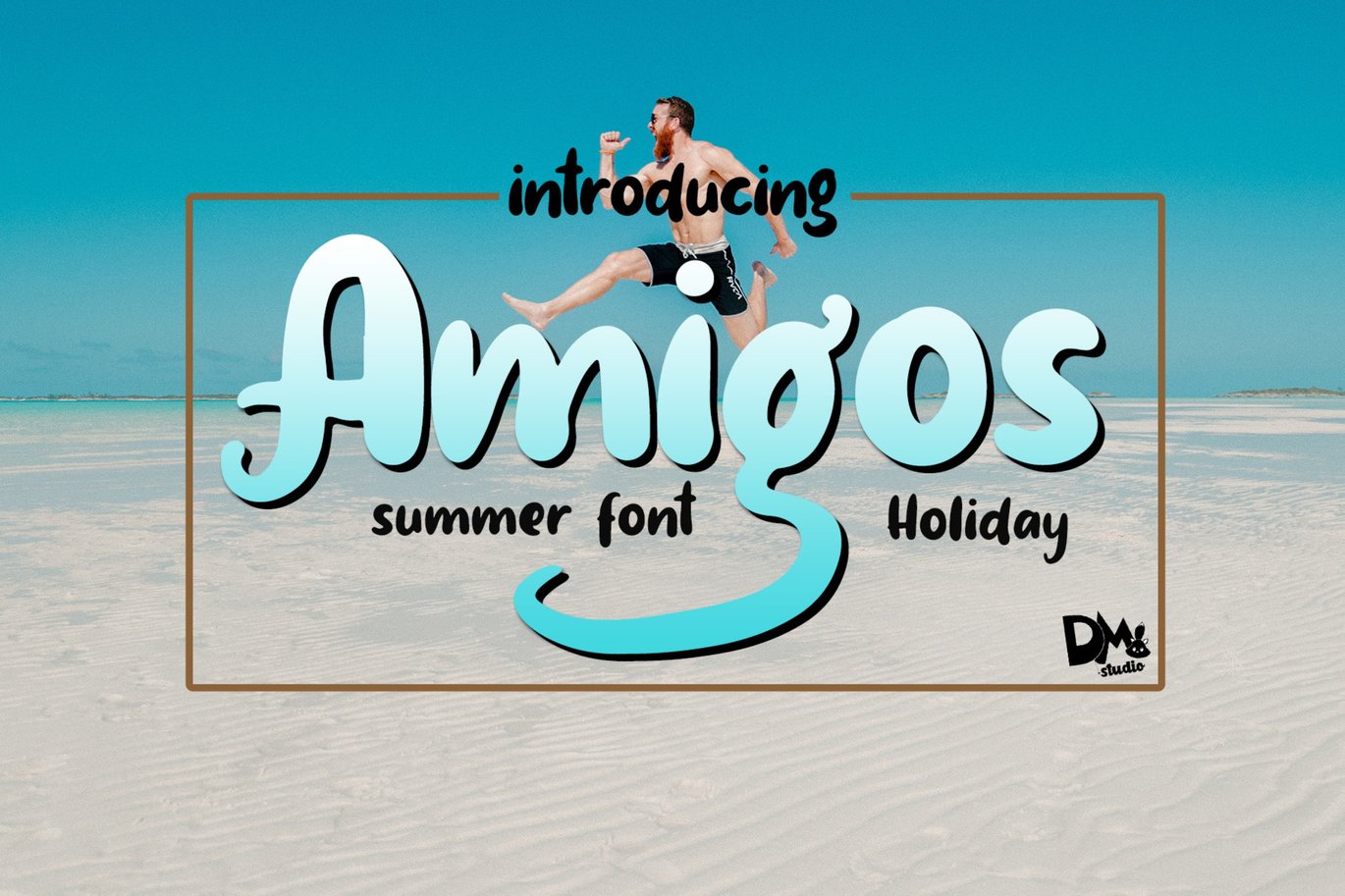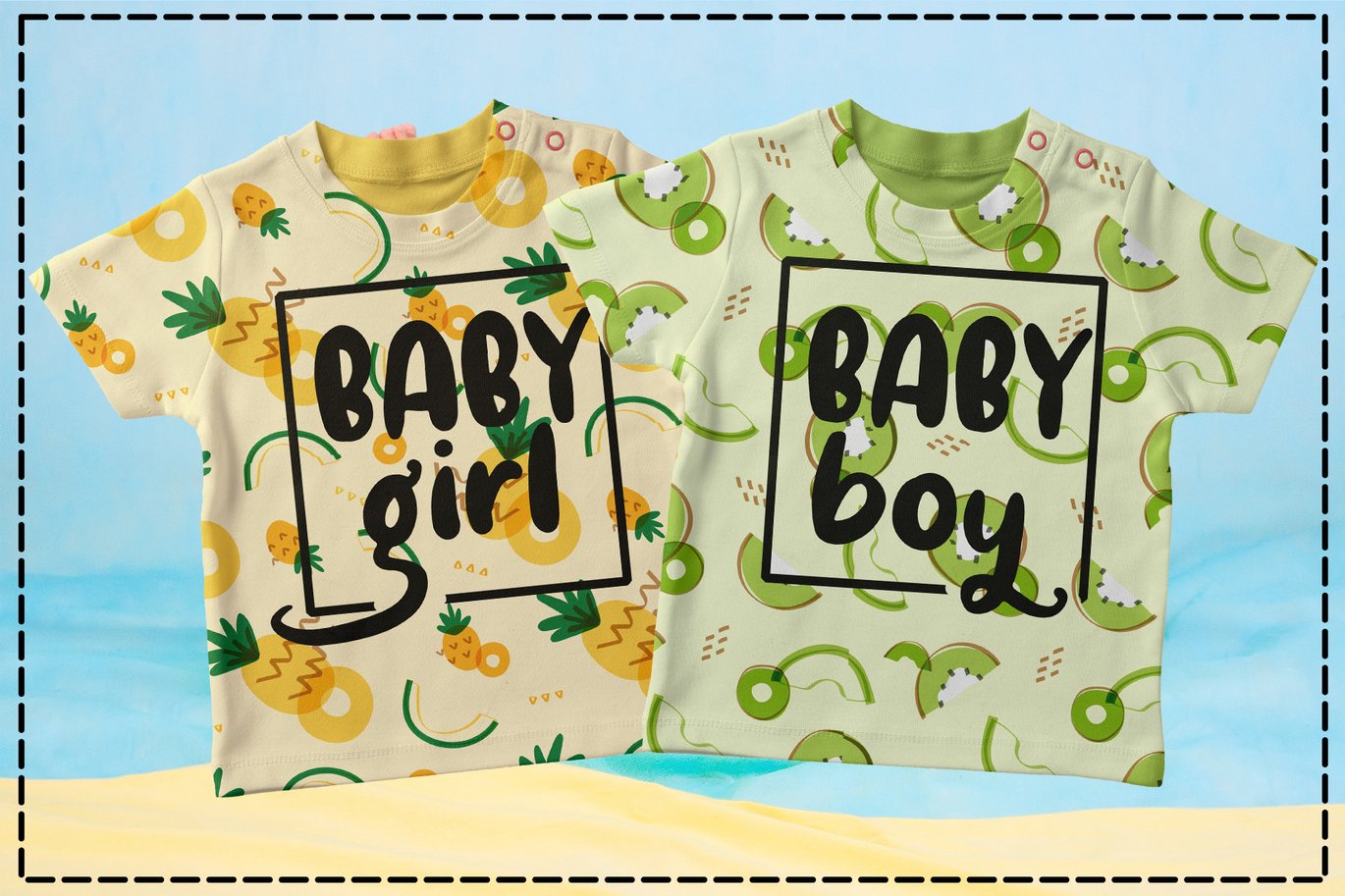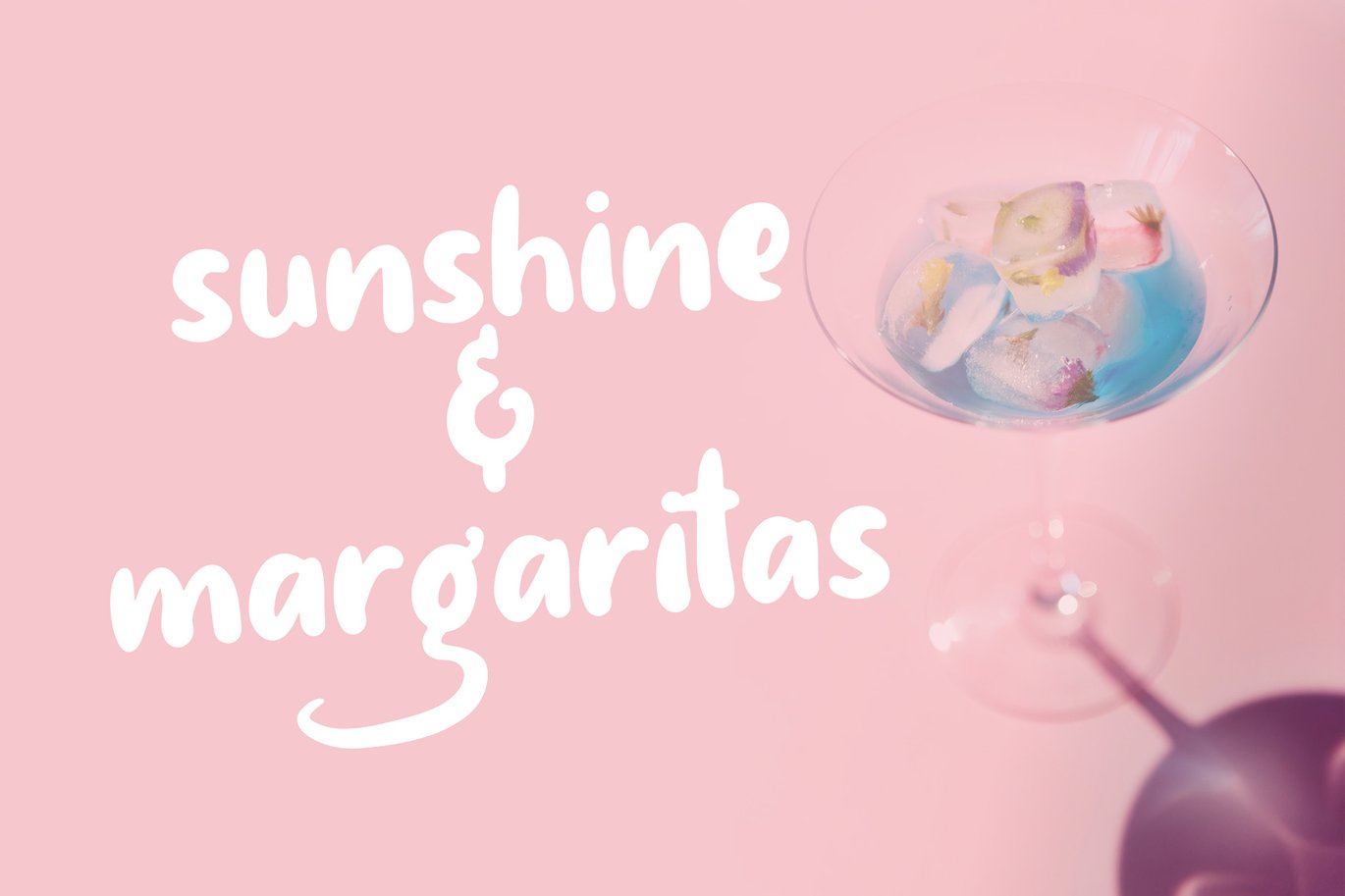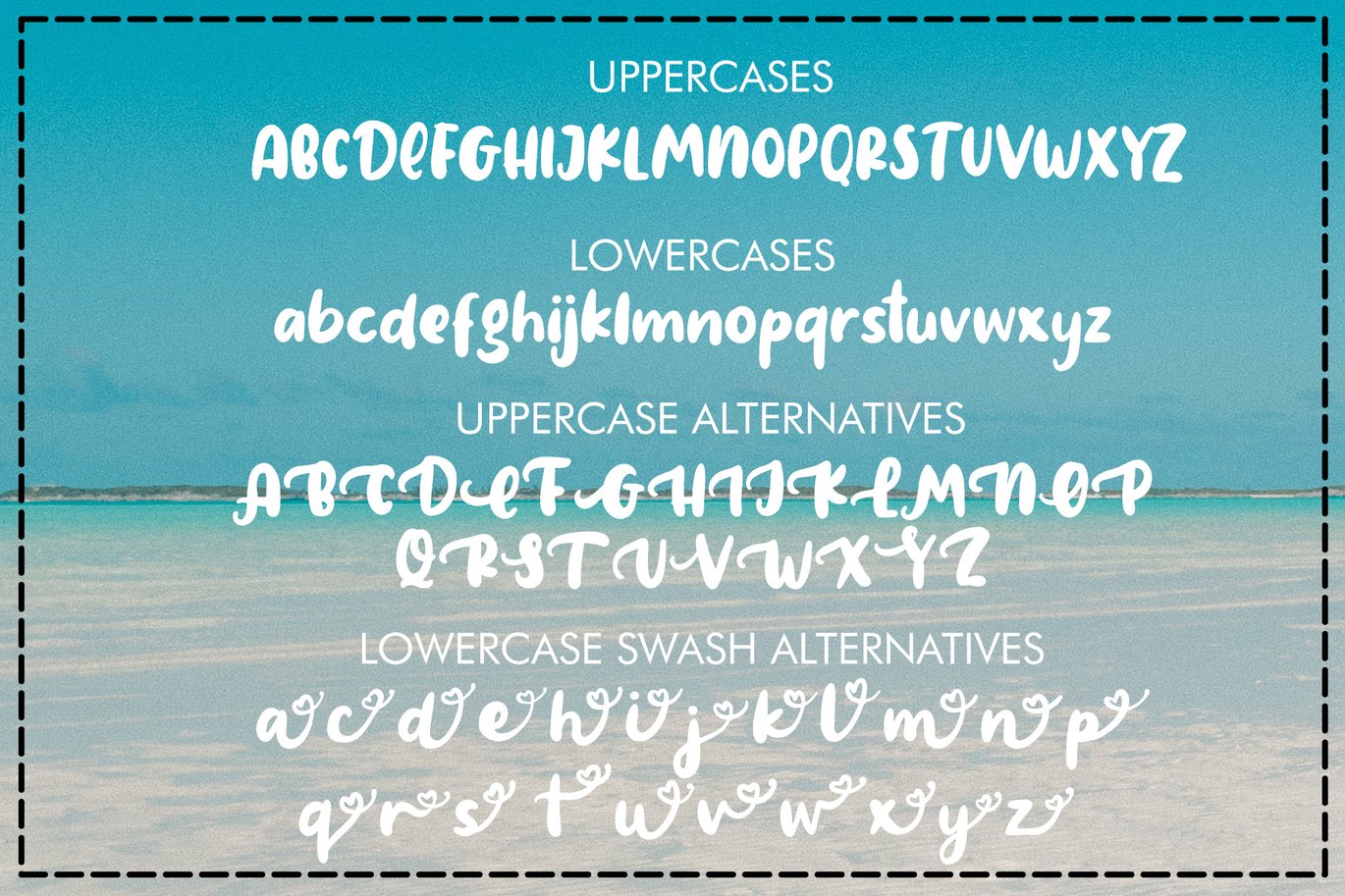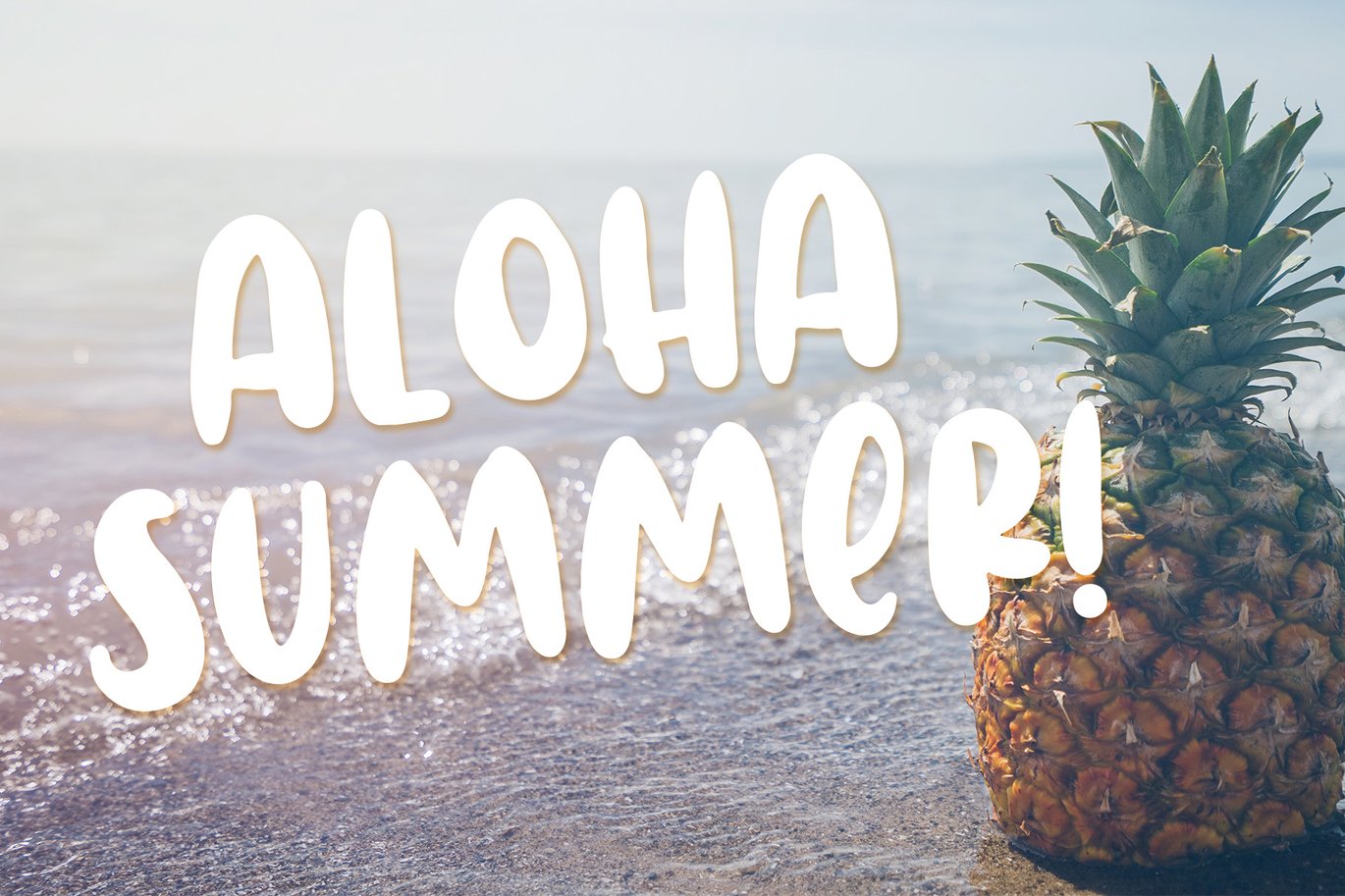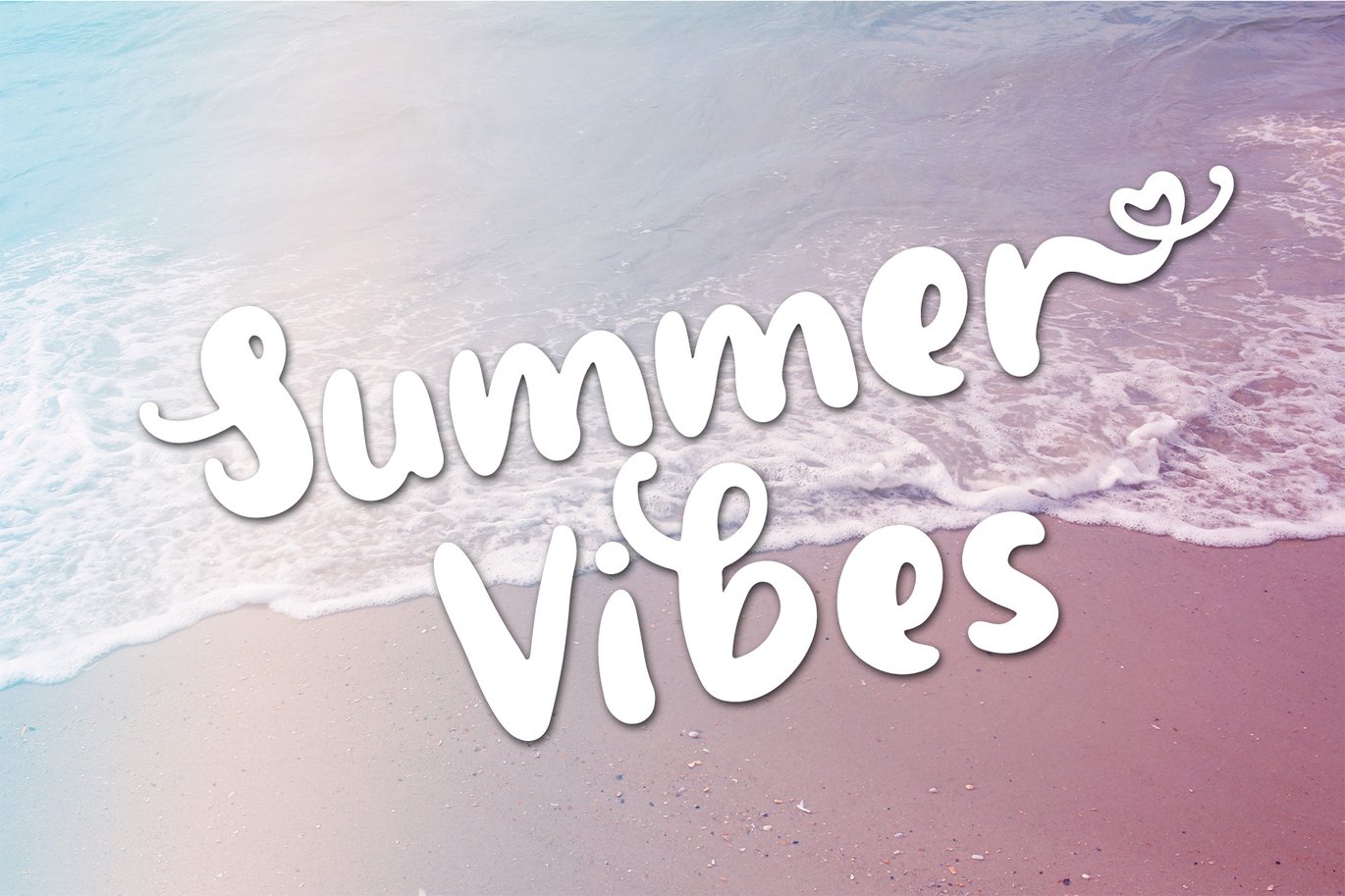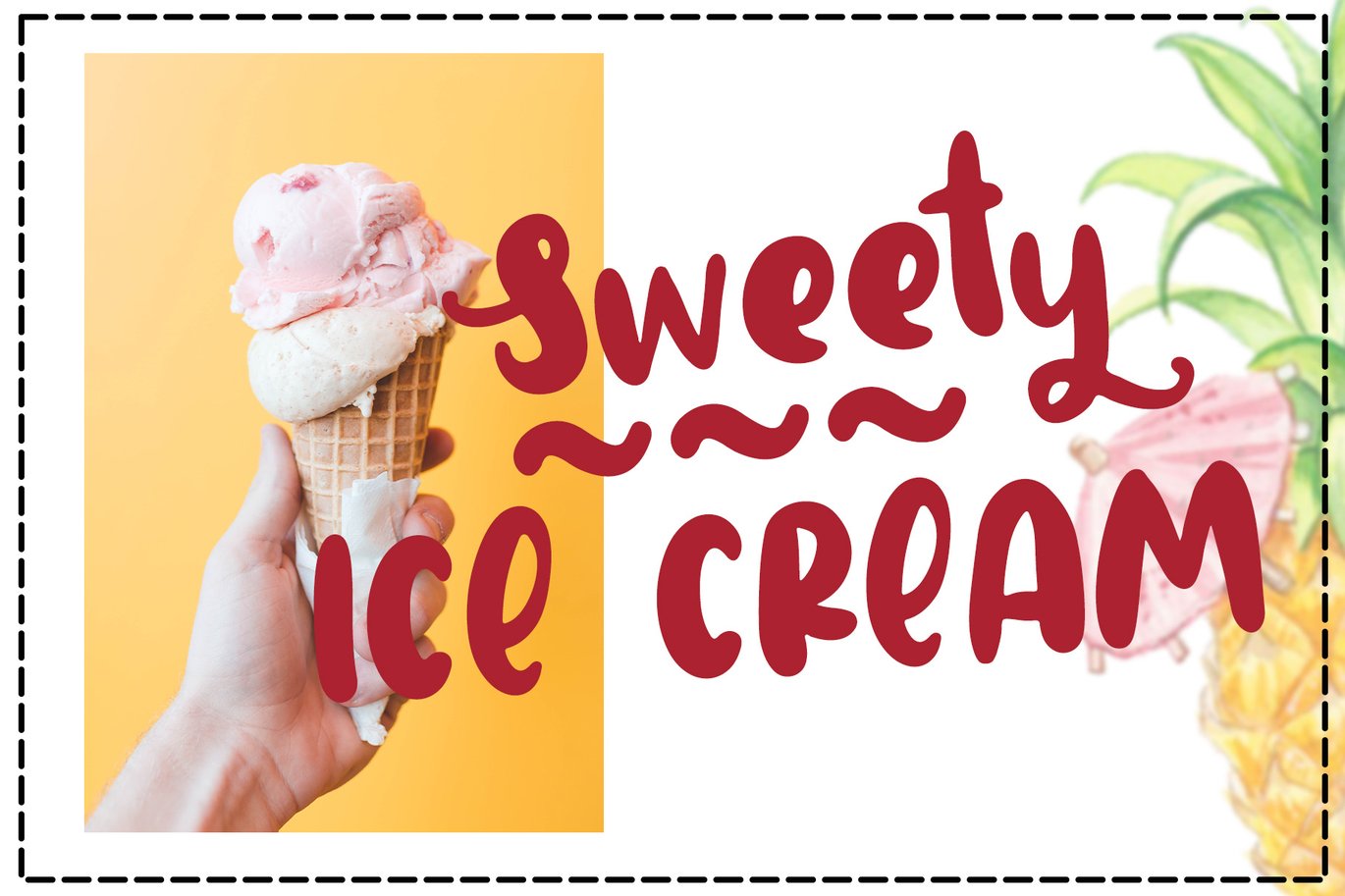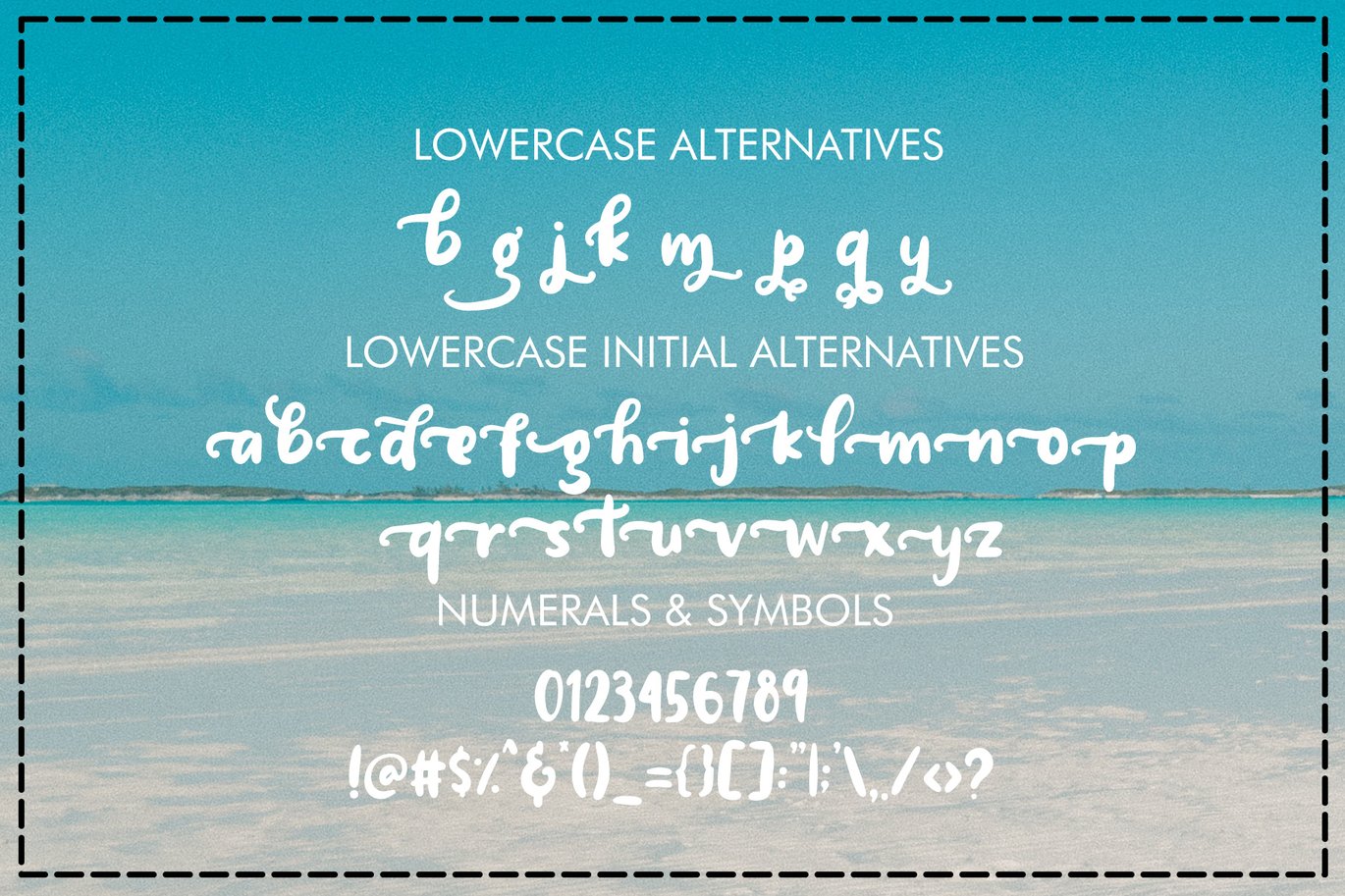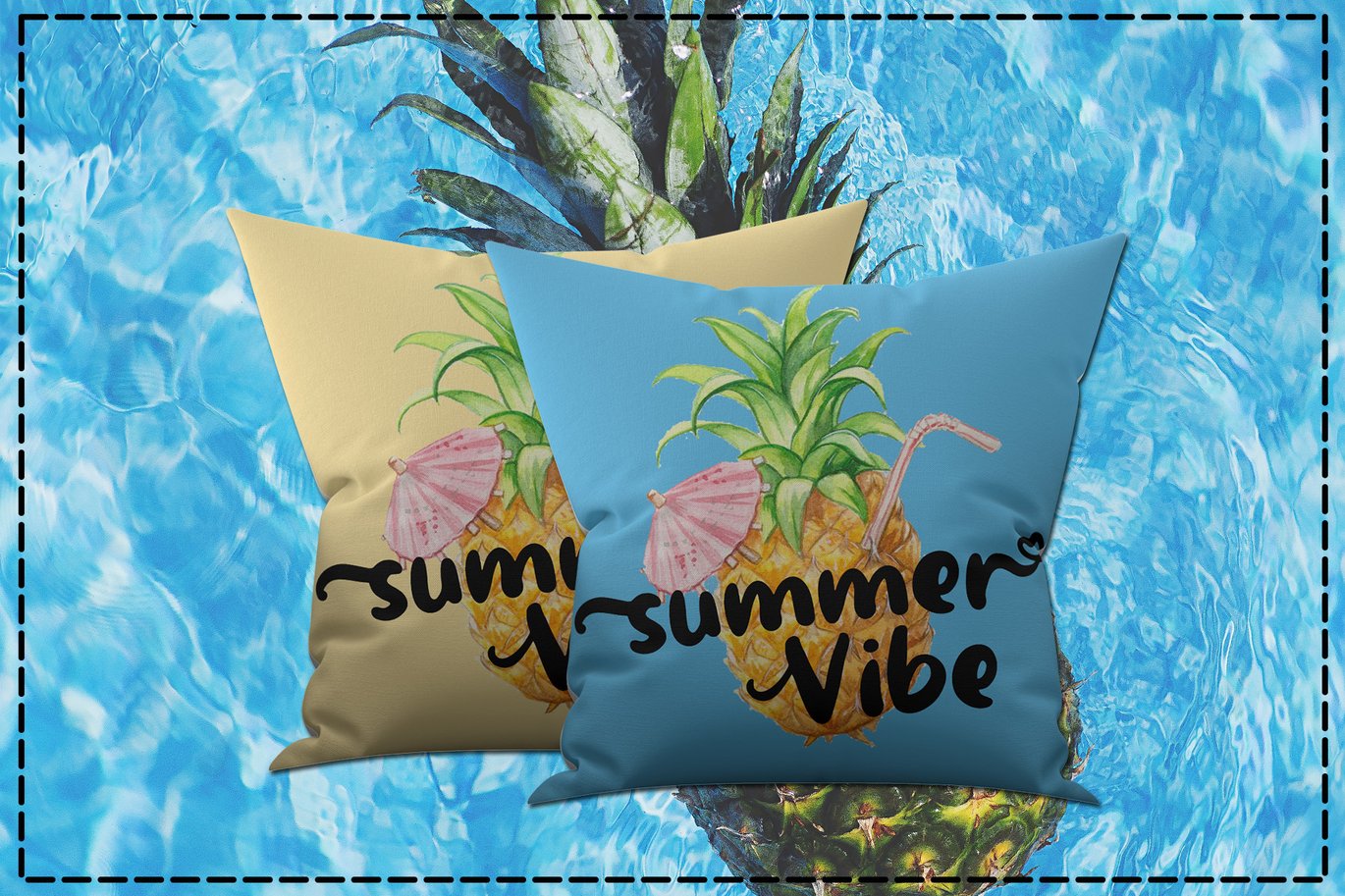
Amigos – Summer Font
Introducing, Amigos Summer Font!
Good choice for your summer theme flyer, promotion, card, posters, clothing, quotes, social media posts, crafting and any kind of printing design!
Amigos features :
- Standard Basic Character Set, including UPPERCASE, lowercase, numeric and symbols.
- With Uppercase & lowercase Alternatives, lowercase swash alternative, lowercase initial alternative